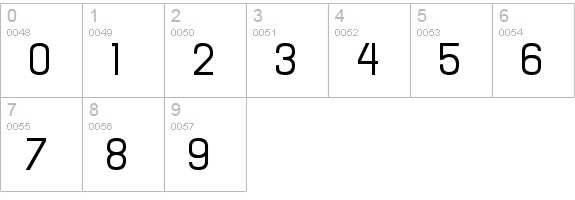
Hallandale JL Font Details
Hallandale JL is a beautifully crafted font that exudes elegance and sophistication. This sans serif typeface is perfect for adding a touch of class to any design project. With its clean and timeless design, Hallandale JL is versatile and can be used for both headers and body text. One of the standout features of Hallandale JL is its versatility. It can be easily paired with other fonts to create a harmonious and cohesive design. Whether you are designing a logo, a poster, or a website, this font will elevate your project to the next level. What makes Hallandale JL even more appealing is that it is free to download at FontsMarket.com. This means that you can add this stunning font to your collection without having to spend a dime. The creators of Hallandale JL understand the importance of accessibility and have generously made this font available to everyone. So why wait? Add a touch of sophistication to your designs with Hallandale JL. Download it for free at FontsMarket.com and let your creativity shine.